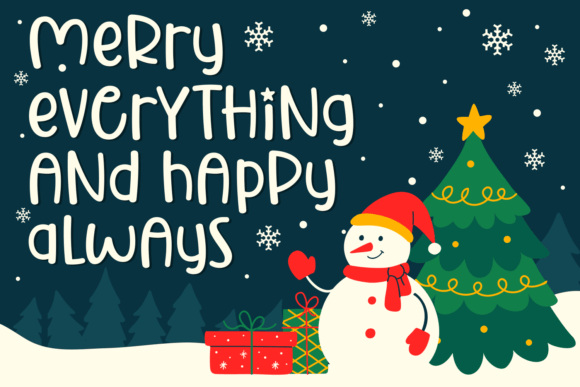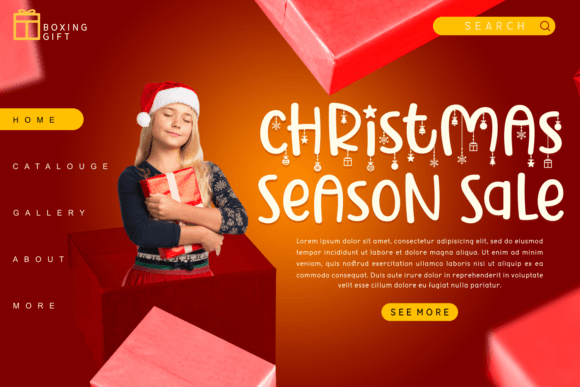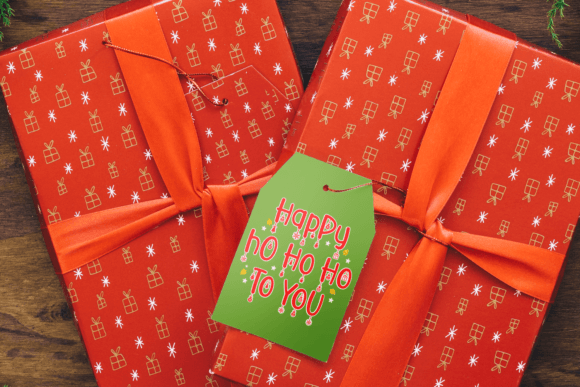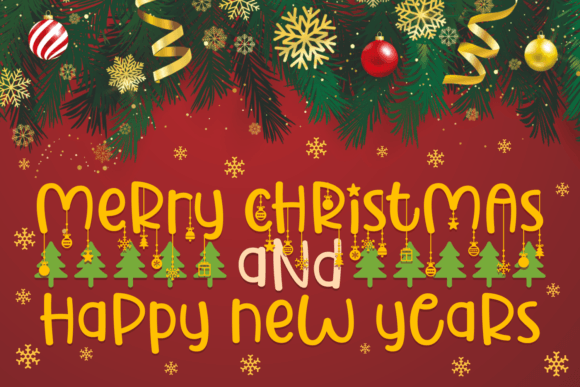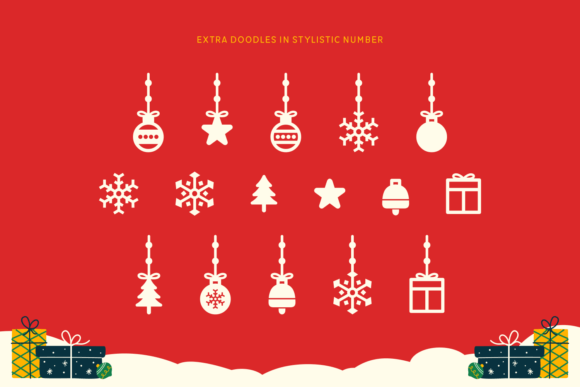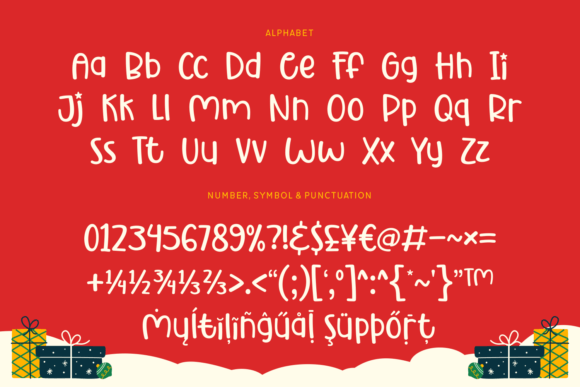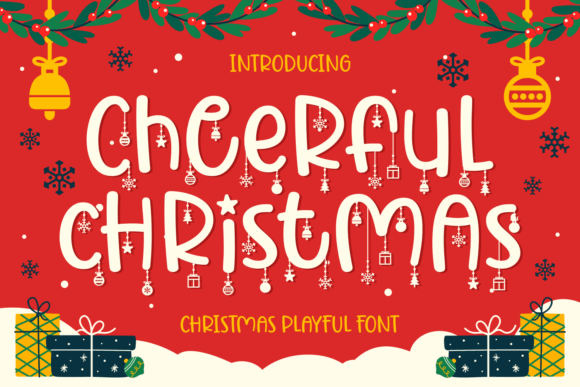
Deck the Halls with Cheerful Christmas Font
Are you looking for a festive font to add a touch of holiday magic to your designs? Look no further than the Cheerful Christmas Font! This delightful decorative font is packed with lovely Christmas elements, making it the perfect choice for creating beautiful Christmas-themed typography.
A Festive Font for Your Holiday Designs
Cheerful Christmas Font is a stylish typeface that is sure to bring a smile to anyone’s face. Its playful and whimsical design makes it ideal for adding a festive note to any design idea. Whether you’re creating Christmas cards, holiday-themed social media graphics, or festive packaging, this font is sure to add an extra dose of cuteness to your designs.
One of the best things about Cheerful Christmas Font is that it’s PUA (Private Use Area) encoded. This means that you can easily access all the glyphs and characters, making it simple to use and incorporate into your designs. With PUA encoding, you can quickly and easily insert festive symbols, such as snowflakes, holly leaves, and Christmas trees, into your text.
With Cheerful Christmas Font, the design possibilities are endless! Here are just a few ideas to get you started:
- Create stunning Christmas cards and invitations with custom typography
- Design festive social media graphics, such as holiday-themed Facebook posts and Instagram stories
- Add a touch of holiday magic to your website or blog with festive headings and titles
- Develop eye-catching packaging for your holiday products or promotions
- Make your holiday crafts and DIY projects stand out with custom labels and tags
Why Choose Cheerful Christmas Font?
So why choose Cheerful Christmas Font over other festive fonts? Here are just a few reasons:
- Unique and playful design: Cheerful Christmas Font has a one-of-a-kind design that’s sure to stand out from the crowd
- Ease of use: With PUA encoding, you can easily access all the glyphs and characters
- Festive and fun: This font is perfect for adding a touch of holiday magic to your designs
- Versatile: Use it for a wide range of design projects, from Christmas cards to social media graphics
Tips for Using Cheerful Christmas Font
Here are a few tips for getting the most out of Cheerful Christmas Font:
- Experiment with different colors: Try pairing the font with festive colors, such as red, green, and gold, to create a holiday look
- Mix and match glyphs: Use the PUA encoded glyphs to create unique and interesting combinations
- Don’t be afraid to get creative: Use the font to add a touch of personality to your designs